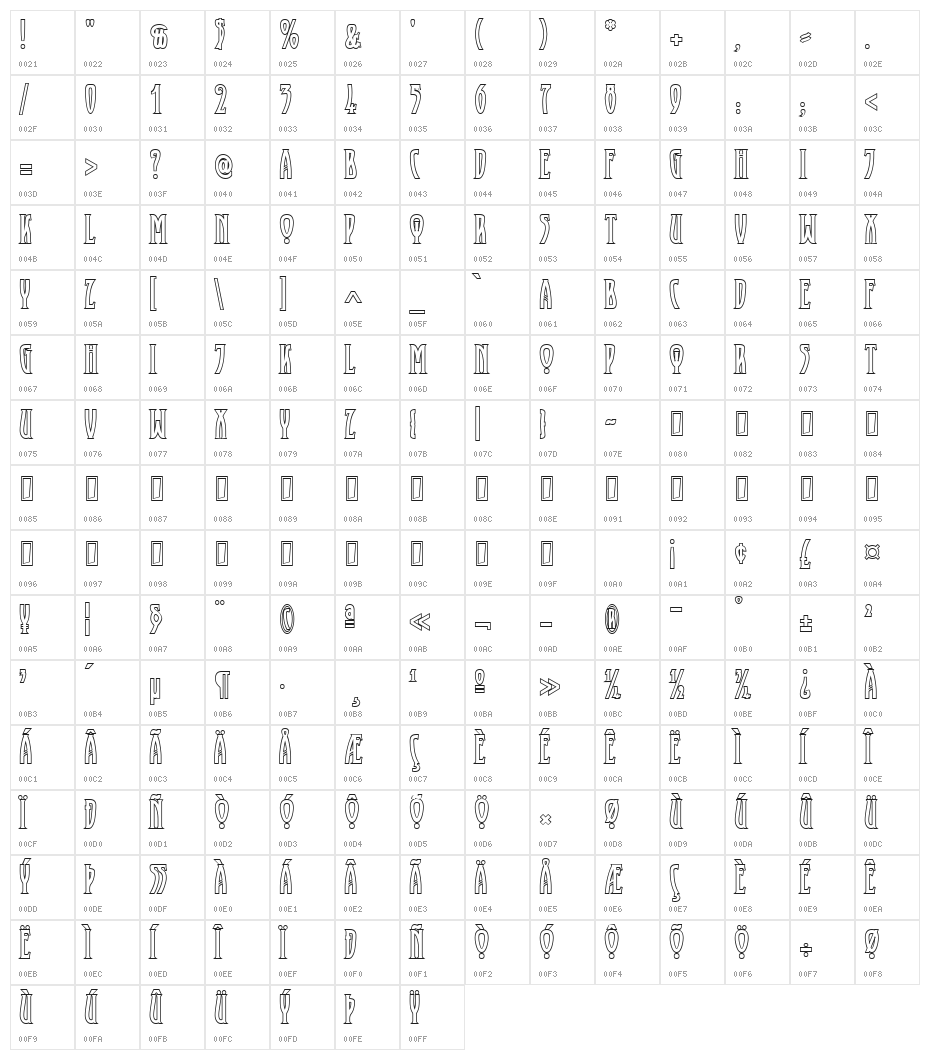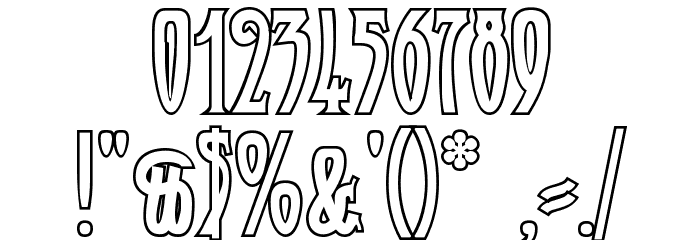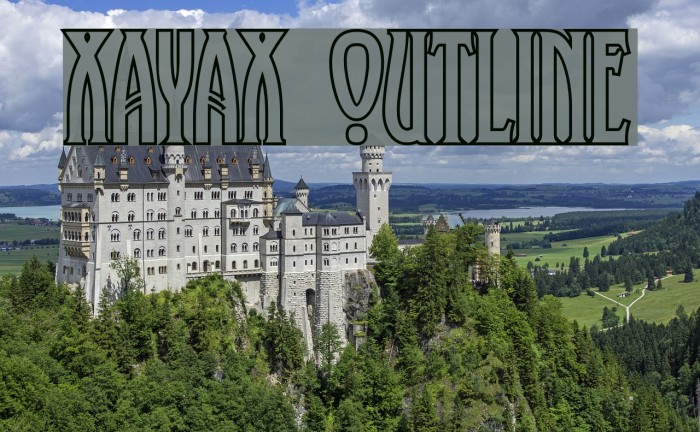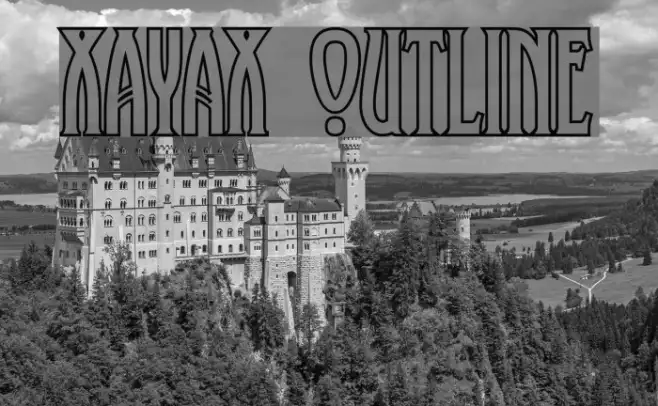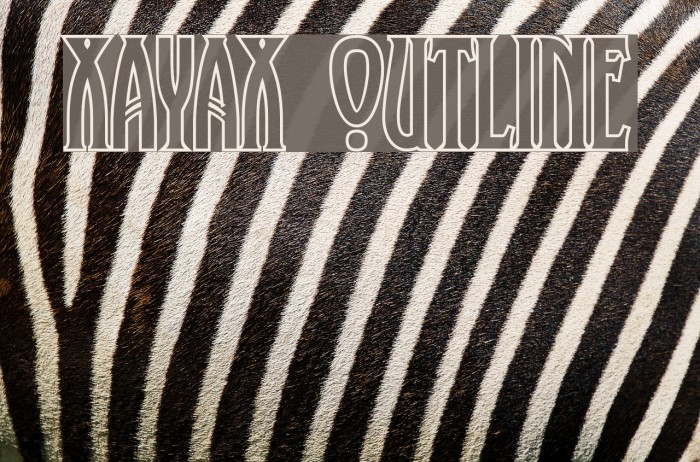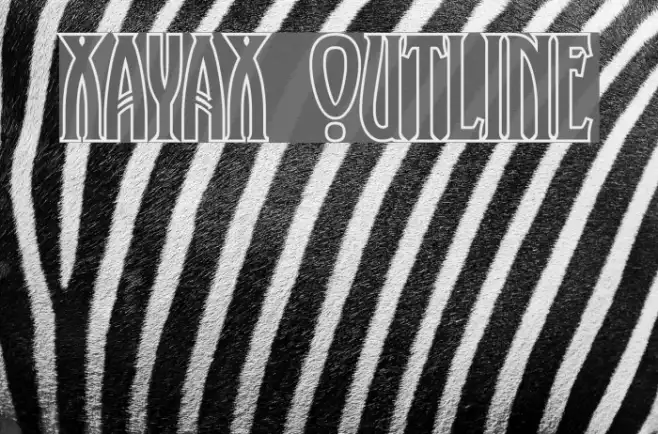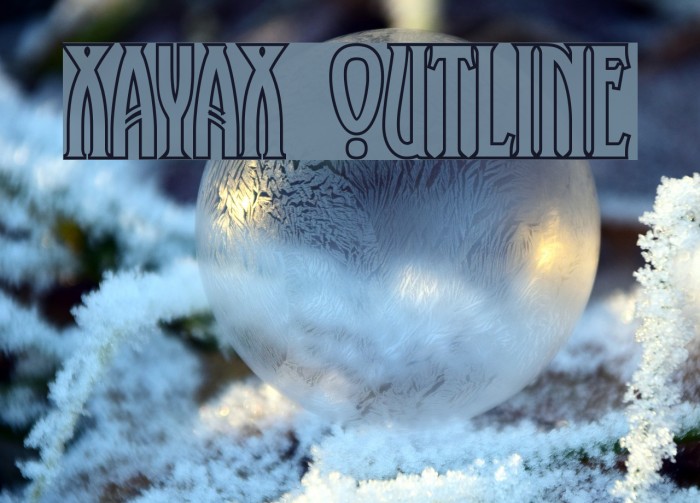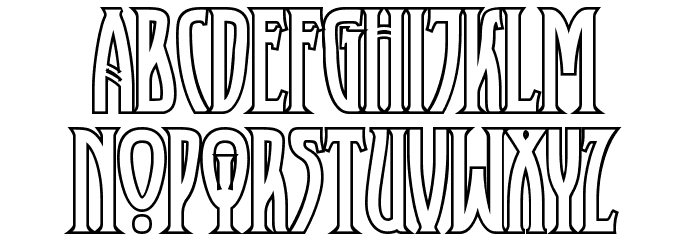
XAyax Outline Font
XAyax Outline Description
This font features a bold, outlined style with a distinct art deco influence. The characters are tall and narrow, with sharp angles and geometric forms that create a striking visual impact. The uppercase letters have a uniform height, while the lowercase letters maintain a similar structure, enhancing readability. The numbers and special characters are designed to match the overall aesthetic, providing a cohesive look. The outlined nature of the font adds a layer of complexity, making it suitable for eye-catching designs.
| Proposed Projects | Ideal for posters, logos, and branding projects that require a bold, vintage touch. |